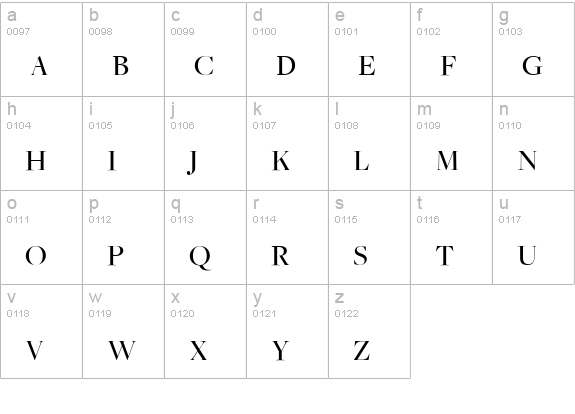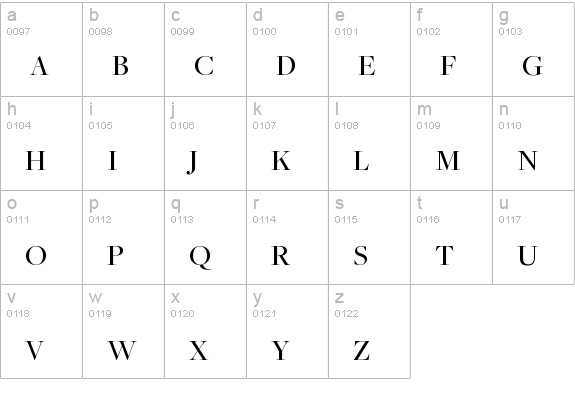
FreightBigBookSC Font Details
FreightBigBookSC font is a stunning and versatile typeface that exudes elegance and professionalism. With its bold and commanding presence, this font is perfect for making a bold statement in any design project. The sturdy serifs and clean lines give FreightBigBookSC a timeless and classic look that is sure to captivate your audience. What makes FreightBigBookSC font even more appealing is that it is available for free download at FontsMarket.com. Yes, you heard it right - you can enjoy the beauty and functionality of this exceptional font without having to spend a dime. Whether you're working on a print design, web project, or branding campaign, FreightBigBookSC font is a valuable asset that will elevate your work to the next level. So why wait? Download FreightBigBookSC font today from FontsMarket.com and unleash the power of this exquisite typeface in your creative endeavors.